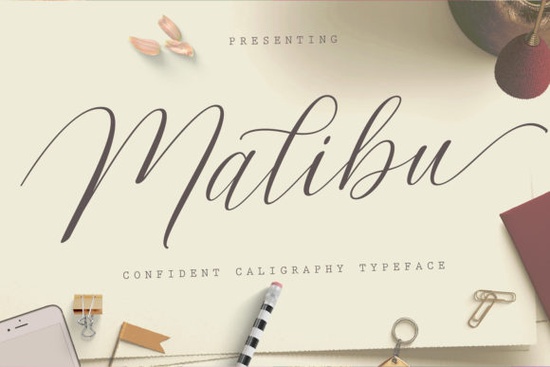
Malibu Script Font is a versatile and elegant typeface that brings a touch of sophistication to any design project. Whether you're creating wedding invitations, t-shirts, or logos, this script font offers a perfect blend of classic calligraphy and modern style. Its PUA encoding makes it easy to access all the glyphs and swashes, giving you more creative freedom without the hassle of complicated software.
If you're looking for a font that can handle both formal and casual designs, Malibu Script Font is an excellent choice. It works well for titles, signatures, and even signage. The fluidity of the letters adds a personal and artistic feel, making it ideal for small businesses, crafters, and print-on-demand sellers who want to stand out in a competitive market.
Why Malibu Script Font Stands Out
One of the key features of Malibu Script Font is its versatility. It can be used across multiple platforms and mediums, from digital designs to printed materials. This makes it a valuable addition to any designer's toolkit. The font’s clean lines and flowing curves make it easy to read while still maintaining a stylish appearance.
Another advantage is the ease of use. Since it's PUA encoded, you don’t have to worry about complex character sets or limited glyph options. This means you can focus on your creative process without technical barriers. Whether you're designing a logo or crafting a custom label, Malibu Script Font gives you the flexibility to express your vision clearly.
Best Uses for Malibu Script Font
Malibu Script Font is especially useful for projects that require a personal or artistic touch. For example, wedding invitations often benefit from a script font that feels warm and inviting. Similarly, t-shirt designs can gain a more handcrafted look when using this font.
It’s also great for branding purposes. Small businesses and independent creators can use Malibu Script Font to develop a consistent visual identity across their marketing materials. From letterhead to social media graphics, this font helps maintain a cohesive and professional appearance.
For print-on-demand sellers, Malibu Script Font can be a game-changer. It allows you to create unique, eye-catching designs that appeal to customers looking for something special. Whether you're selling custom apparel, stationery, or home decor, this font adds a refined and personalized touch.
How to Get the Most Out of Malibu Script Font
To make the most of Malibu Script Font, consider experimenting with different sizes and spacing. This can help you achieve the right balance between readability and style. You might also want to pair it with a complementary sans-serif font for contrast, especially in larger text blocks.
Don’t forget to explore the full range of glyphs and swashes available. These details can add depth and character to your designs, making them more visually engaging. If you're new to script fonts, start with simple projects and gradually move to more complex ones as you become more comfortable.
Whether you're a designer, crafter, or small business owner, Malibu Script Font provides a reliable and stylish option for your creative projects. Its combination of elegance and practicality makes it a valuable asset in any design workflow.
- Try using Malibu Script Font for wedding invitations or custom labels.
- Experiment with different sizes and spacing to find the best look.
- Pair it with a sans-serif font for contrast in larger text blocks.